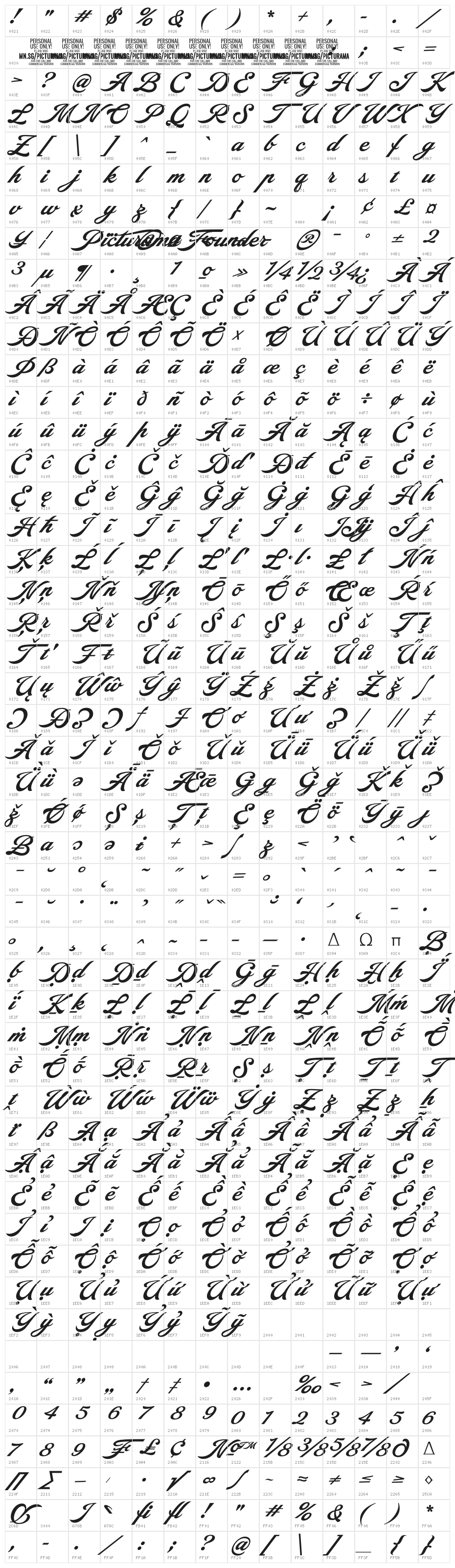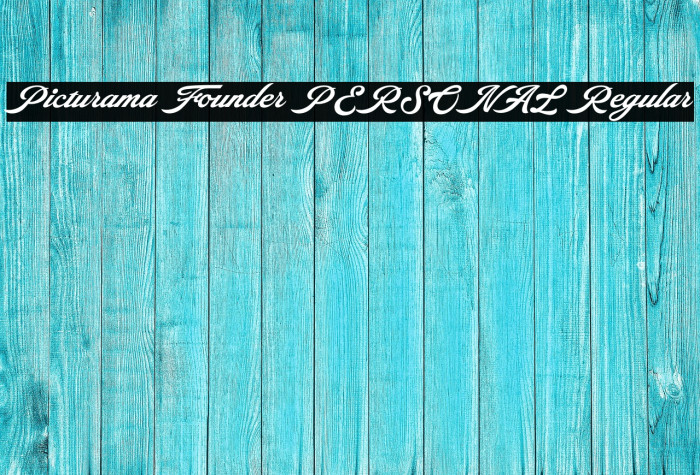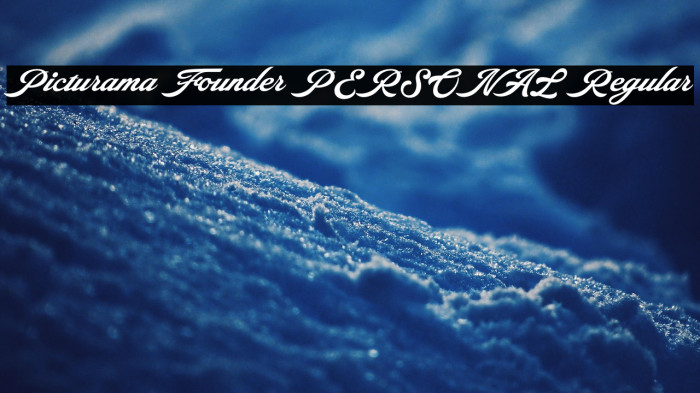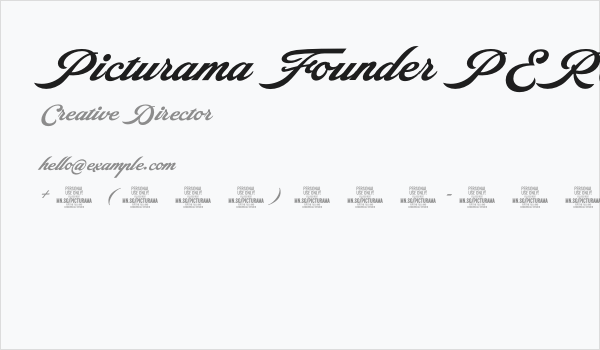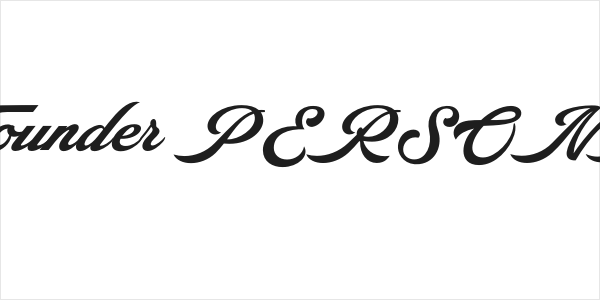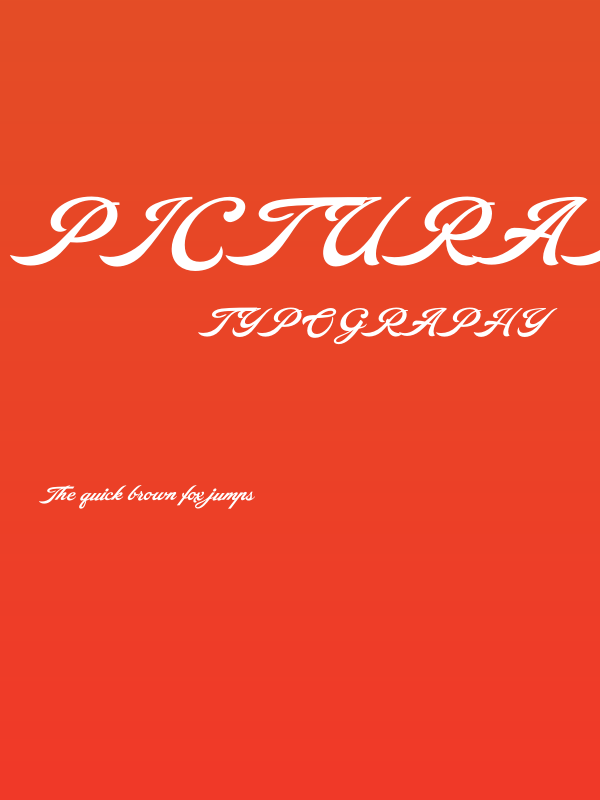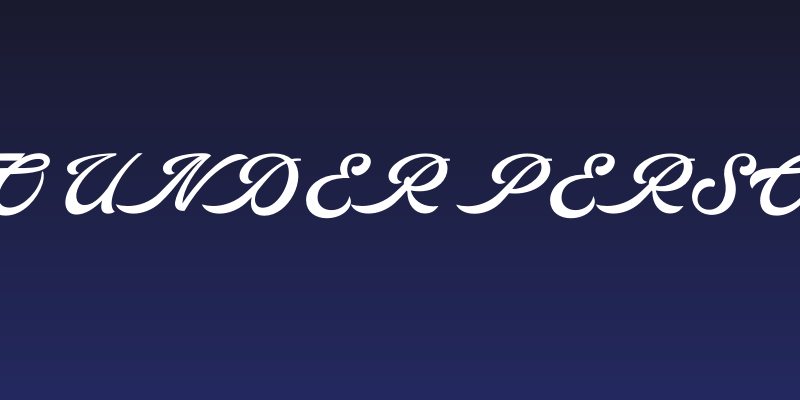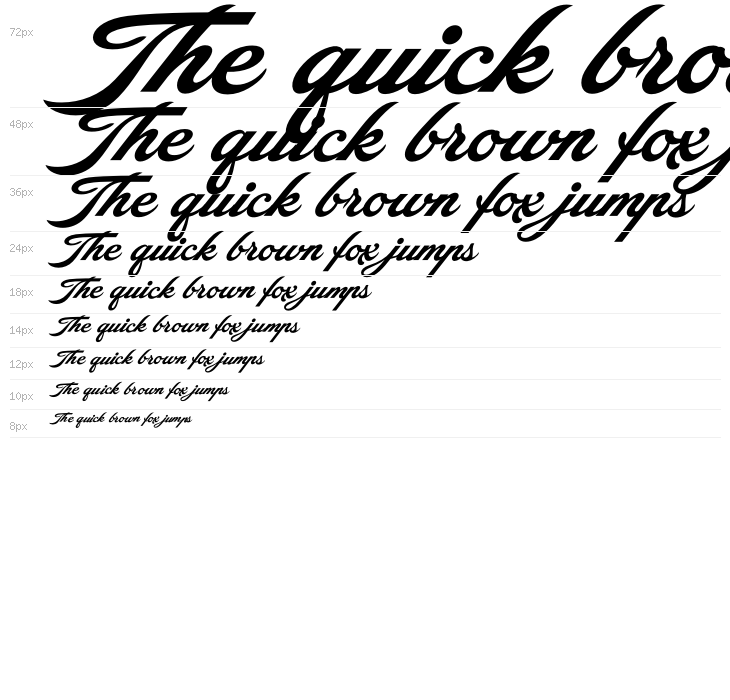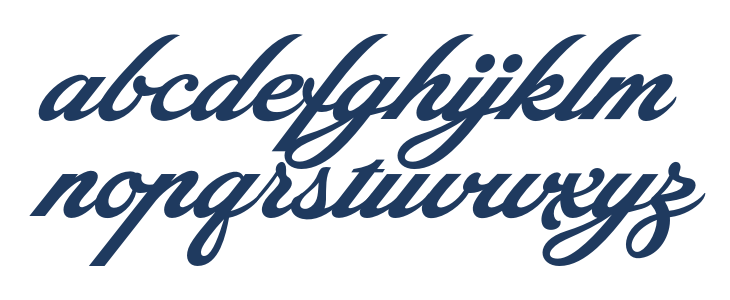
Picturama Founder PERSONAL Regular Font
Picturama Founder PERSONAL Regular Description
This font features a bold and elegant script style, characterized by its flowing, cursive letterforms. The uppercase letters are ornate, with sweeping curves and flourishes that add a touch of sophistication. The lowercase letters maintain a consistent style, with smooth connections between characters, enhancing readability while retaining an artistic flair. The numerals and special characters are designed to match the overall aesthetic, ensuring a cohesive look across all text. This font is ideal for projects that require a touch of elegance and creativity.
| Overall Style | Elegant, Decorative |
| Proposed Projects | Ideal for wedding invitations, branding, logo design, and elegant packaging. |